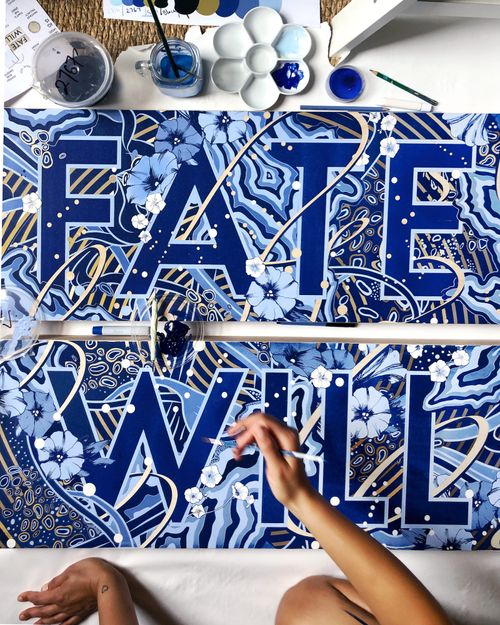
Q&A Gemma O’Brien
‍Biography Gemma O’Brien is an internationally renowned designer and artist known for her bold graphics, illustrative lettering and murals. Her work has been commissioned by Apple, Nike, Google, and is held in the permanent collection of the Cooper Hewitt Smithsonian Design Museum in New York City. Outside her commercial design work, she explores language, nature and the human experience through her art practice.
Interview
Describe your typical day?
Gemma O’Brien Wake up, get out in the sun and move, black coffee, fruit, then to the art studio to begin the day.
Then, what is the first thing you do when you arrive at your studio?
Gemma O’Brien Often as I’m in Australia and working with international clients I do calls early in the morning, then put on some music,  knock out emails for a few hours in the morning then have the afternoon for freer creative work. Clock off in time to see the sunset, and one drawing before bed!
What is your work environment?
Gemma O’Brien I like to do admin(tax, emails) in transit, in cafes or hotel lobbies, but anything that’s more analogue and physical is better in my art studio.
Have your work habits changed notably after the lockdown and the later pandemic restrictions?
Gemma O’Brien The biggest impact of the pandemic is realising I need more structure than I did in the past. Habits and routine help fend off the distraction demons. I still need a lot of variety in my day: a mixture of computer work, movement, inspiration, walks etc. When I am deadline or really need to get things done I use time-limit power work sessions and use music to boost my energy.
“Bring your unique way of seeing the world, your life experiences and background into your work.”
– Gemma O’Brien
Favourite kind of music to listen to while working?
Gemma O’Brien It changes – when I need to concentrate(planning, quoting, writing) I need silence, otherwise I swing between upbeat playlists that are a combination of pop, funk, and grime. I also listen to a lot of audiobooks and podcasts.
Do you read news?
Gemma O’Brien Not any more. After the pandemic I became really sensitive to external input that affected my energy flow. I only look at the news when passing newspaper stands, tvs in cafes etc.
Do you practice any sports?
Gemma O’Brien I run, ride my bike, go for a swim in the ocean and love looking in bookstores and going to a little cinema in my neighbourhood called the Golden Age.
What made you choose design?
Gemma O’Brien I was a year into a law degree and very unhappy. I wanted to be an artist, but I enrolled in a design degree instead.
Do you sketch–draw on paper?
Gemma O’Brien Yes, I often begin with both words, sketches, thumbnails in pencil. I also refer to my visual diary for ideas and then move into digital work.
“Don’t be swayed by the noise, keep moving forward in line with your vision.”
– Gemma O’Brien
What is your ratio of self-initiated projects vs. commissions for clients?
Gemma O’Brien The balance shifts all the time, but I do like having both. Often my artworks, installations and personal work fuel the client commissions that come in a year or two later.
Redrawing type classics or inventing new forms?
Gemma O’Brien As my career as progressed more towards art and illustrated letterforms I tend to either use existing fonts(often strong, bold sans serifs) as the starting point for my pieces or steer completely in the opposite direction where elements are more organic and inspired by nature.
Who had the most impact on you?
Gemma O’Brien More recently I’ve been inspired by artists have dedicated a long life to art, something I aspire to: Patti Smith, Katharina Grosse and Hilma af Klint.
Do you have words of wisdom for someone who wants to become a designer?
Gemma O’Brien Bring your unique way of seeing the world, your life experiences and background into your work. Don’t be swayed by the noise, keep moving forward in line with your vision.